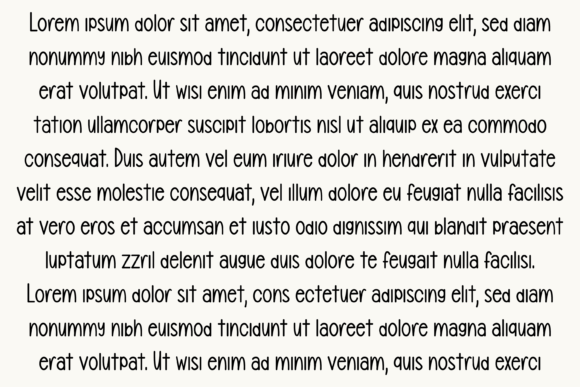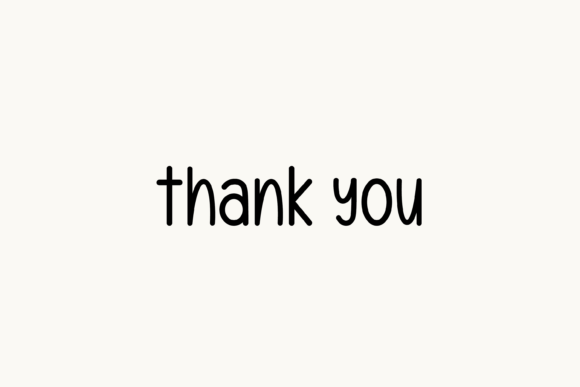
Introduction to Marja Font
As designers, we’ve all been there – staring at a blank page, trying to bring a creative idea to life. But sometimes, it’s not the concept that’s the challenge, but finding the perfect font to match the mood and tone of our project. That’s where the Marja Font comes in – a simple, yet whimsical handwritten font that’s sure to brighten up your designs and leave a lasting impression.
With its high-quality design and transparent background, the Marja Font is the perfect addition to any creative project. Whether you’re working on a logo, wedding invitation, or advertisement, this font is sure to add a touch of personality and charm. And the best part? It’s available for free download, making it an invaluable resource for designers of all levels.
So why settle for a generic font when you can add a dash of whimsy and creativity to your design with the Marja Font? Trust us, your projects will thank you.
Key Features of Marja Font
- High-quality design resource for creative projects: Marja Font offers a unique and elegant style perfect for various design applications.
- Unique characteristics: Marja Font features a distinctive and elegant style, with a focus on clean lines, geometric shapes, and subtle nuances that set it apart from other font designs.
- Perfect for design projects: Marja Font is ideal for use in creative projects, including graphic design, digital art, and typography-based designs, where its high-quality design and transparent background can be fully utilized.
Honest Review: Marja Font
As a designer, I’m always on the lookout for high-quality design resources to elevate my creative projects. The Marja Font caught my eye, and I’m excited to share my thoughts.
What works well: ✨ Marja Font has a unique, elegant aesthetic that’s perfect for titles and headings. Its high contrast design makes it easy to read on both light and dark backgrounds, and the transparent background is a nice touch. The font is also highly versatile, suitable for a wide range of creative projects.
Here are some of the key features I like about Marja Font:
- High-quality design with clean lines and elegant aesthetic
- Perfect for titles, headings, and body text
- Transparency option for easy background blending
Limitations: ⚠️ One thing to note is that Marja Font may not be the best choice for body text due to its relatively large file size. Additionally, some users may find the font’s unique style a bit too bold.
Overall, I’m impressed with Marja Font’s high quality and versatility. While it may not be perfect for every design project, it’s a great addition to any designer’s toolkit. If you’re looking for a stylish font for your creative project, Marja Font is definitely worth checking out.